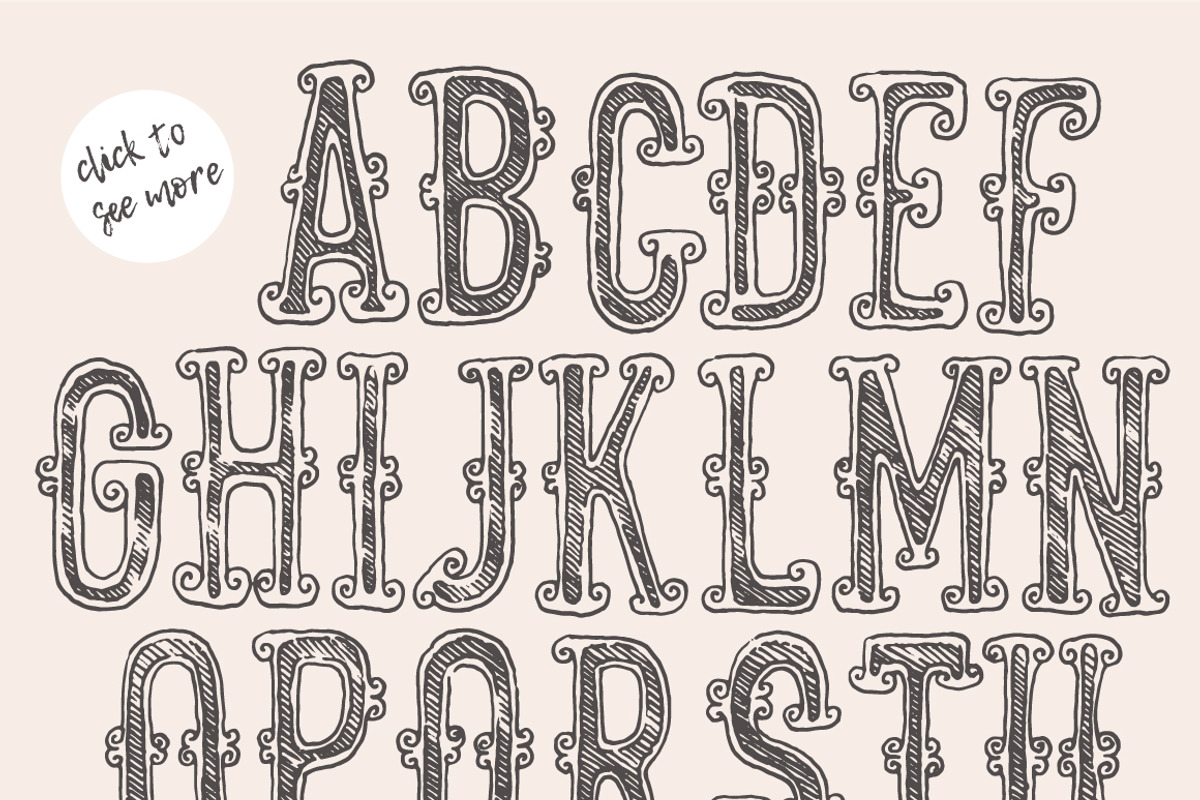
Headline serif original font
Headline serif original font by TheMountBirdStudio is a font selected for branding, posters, packaging, typography.
Why Headline serif original font is worth a look
Headline serif original font by TheMountBirdStudio fits naturally into Branding, posters, packaging, typography.